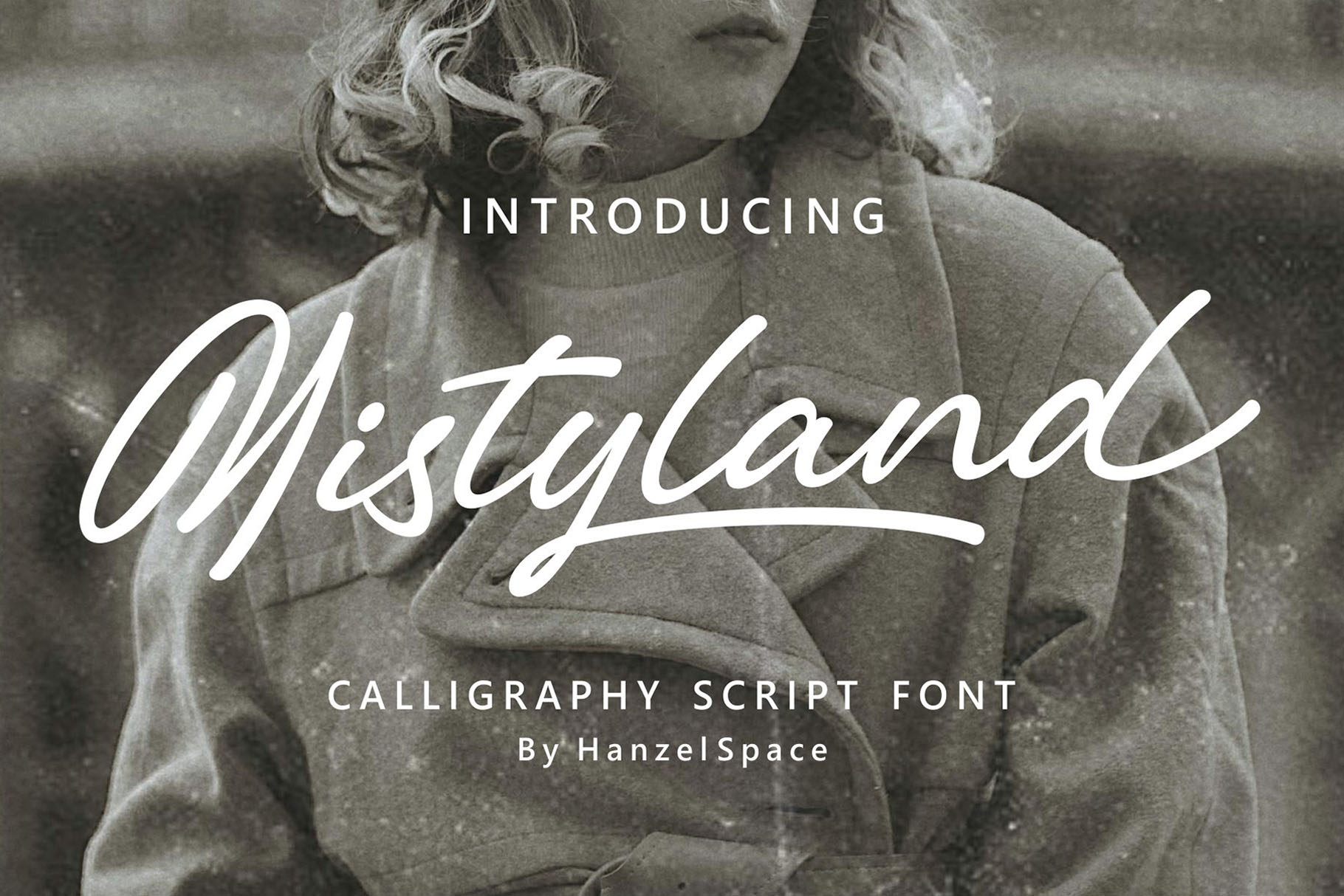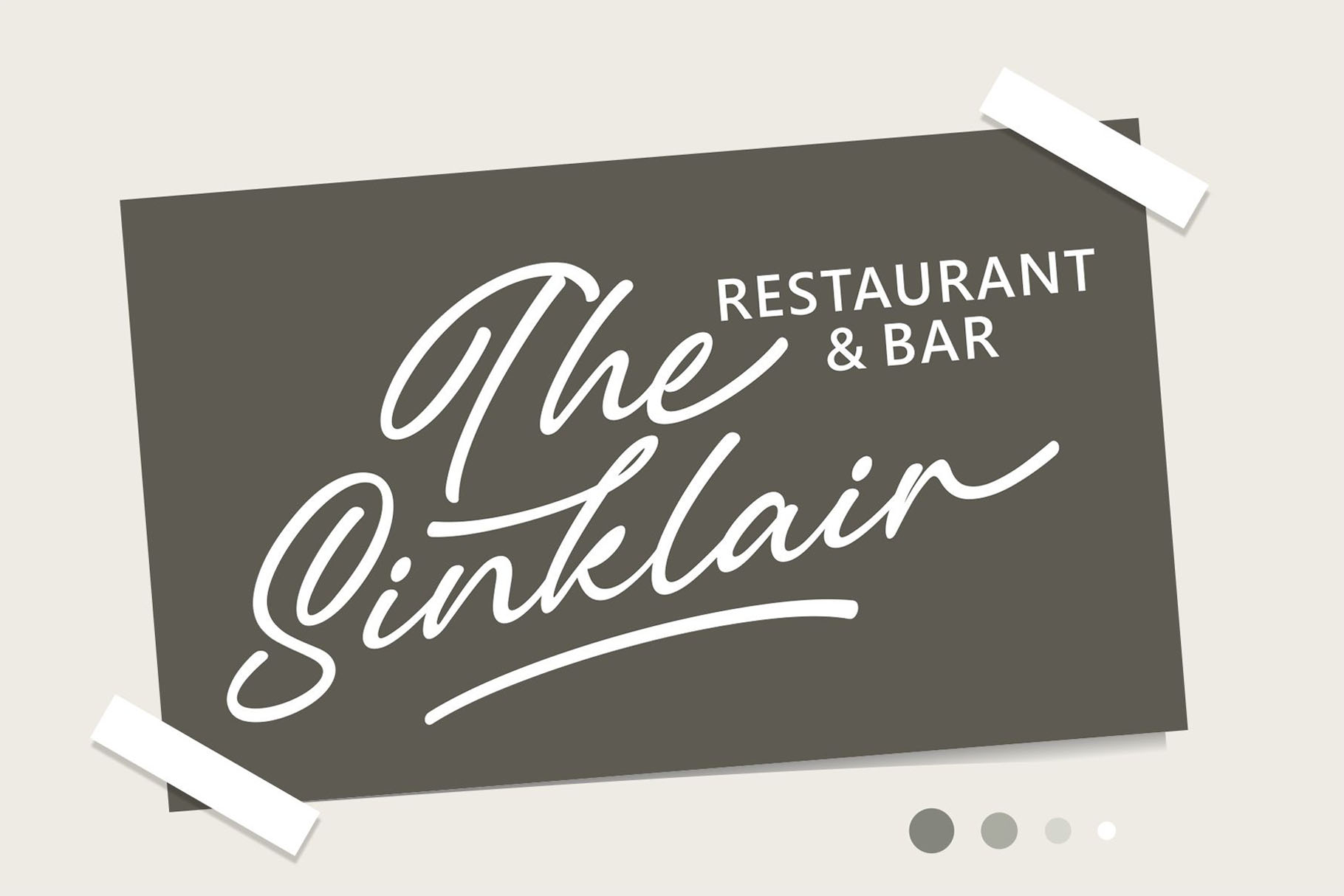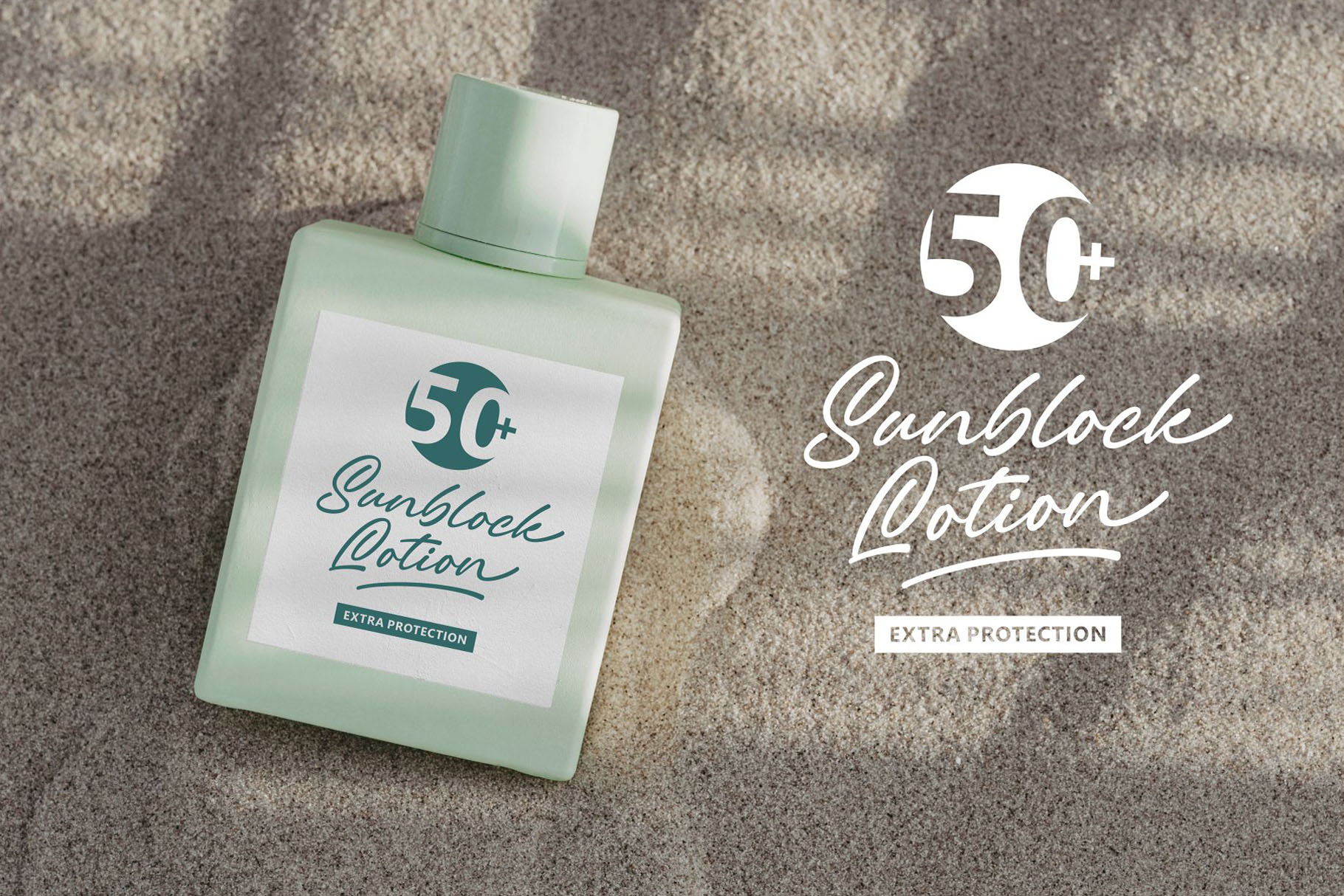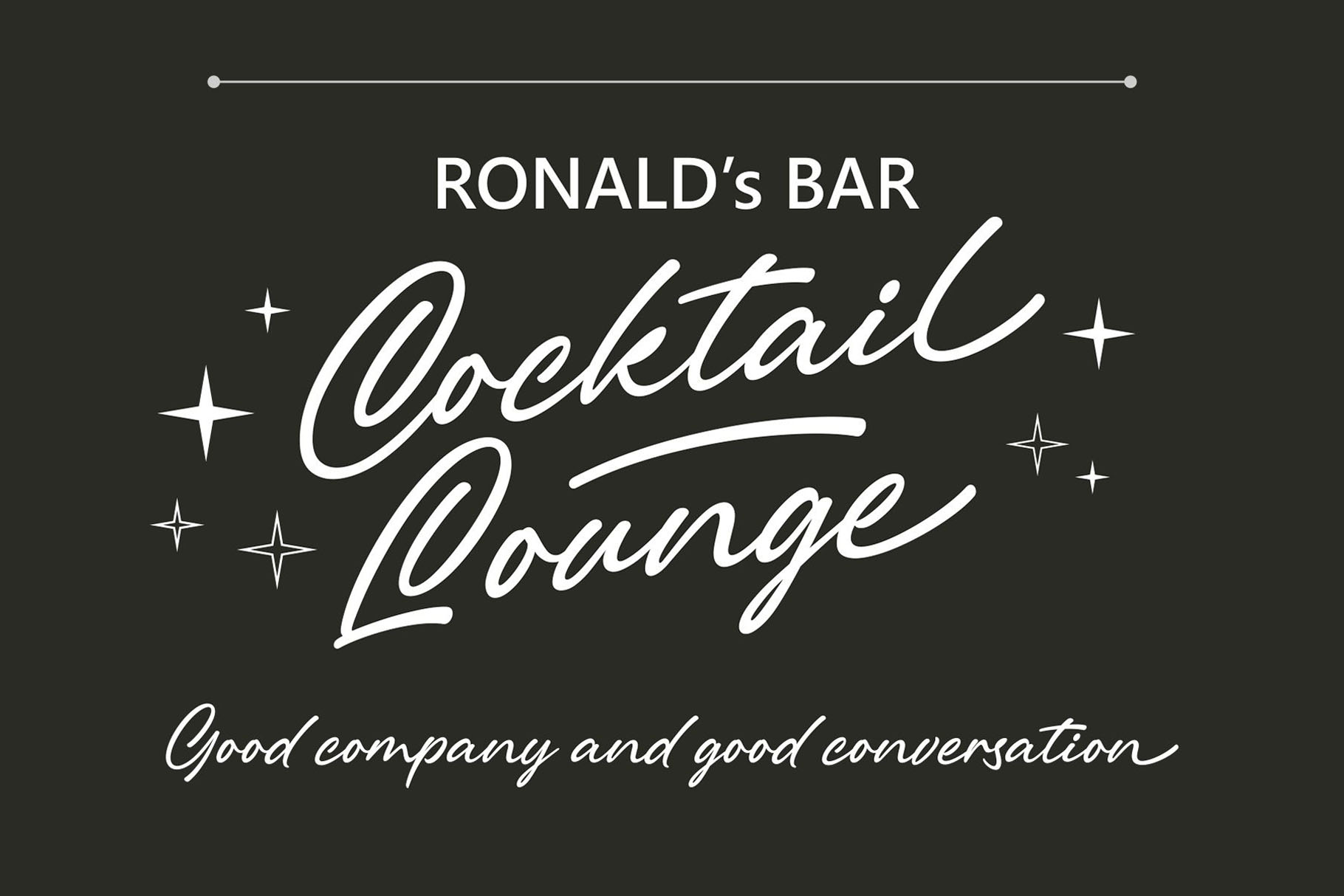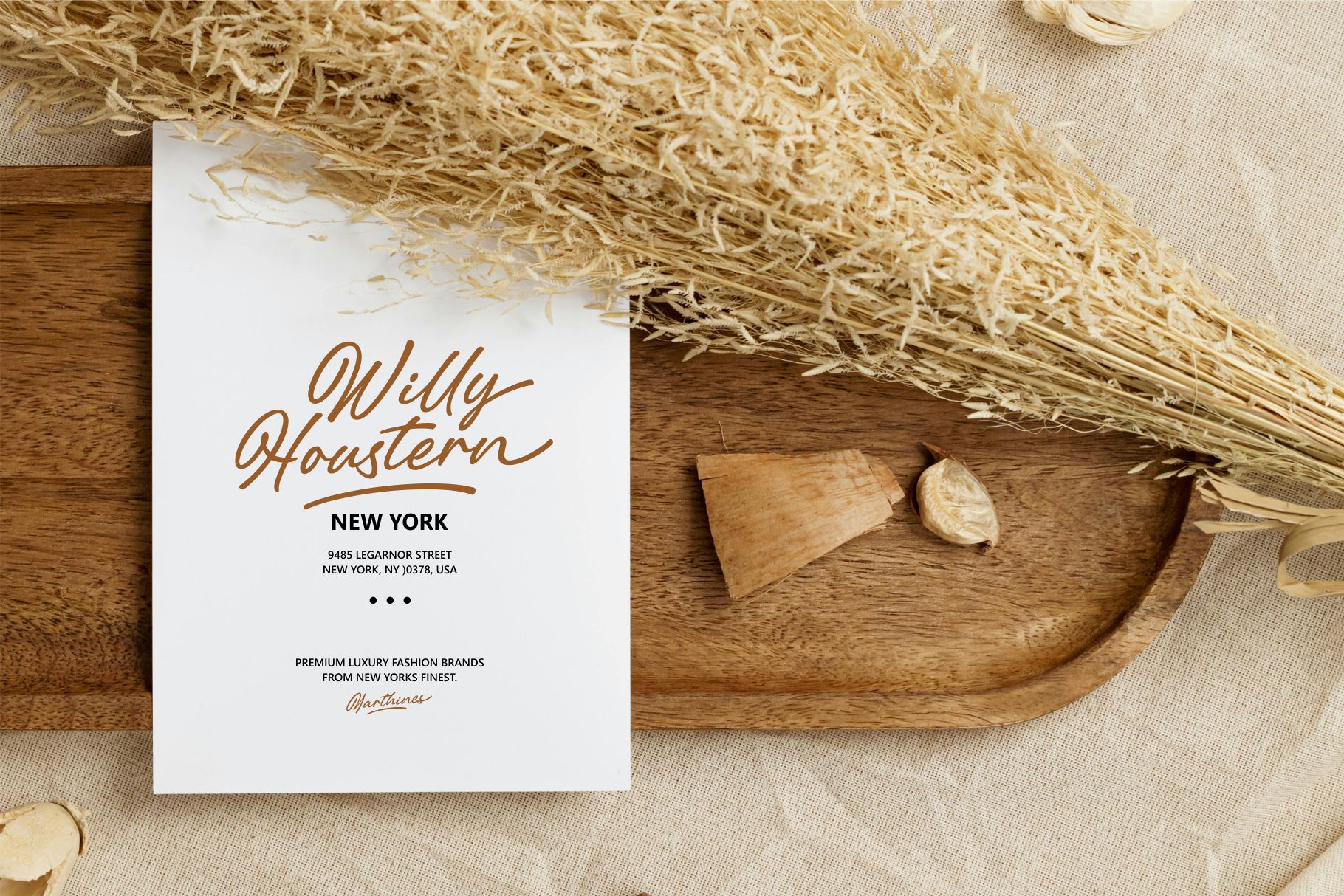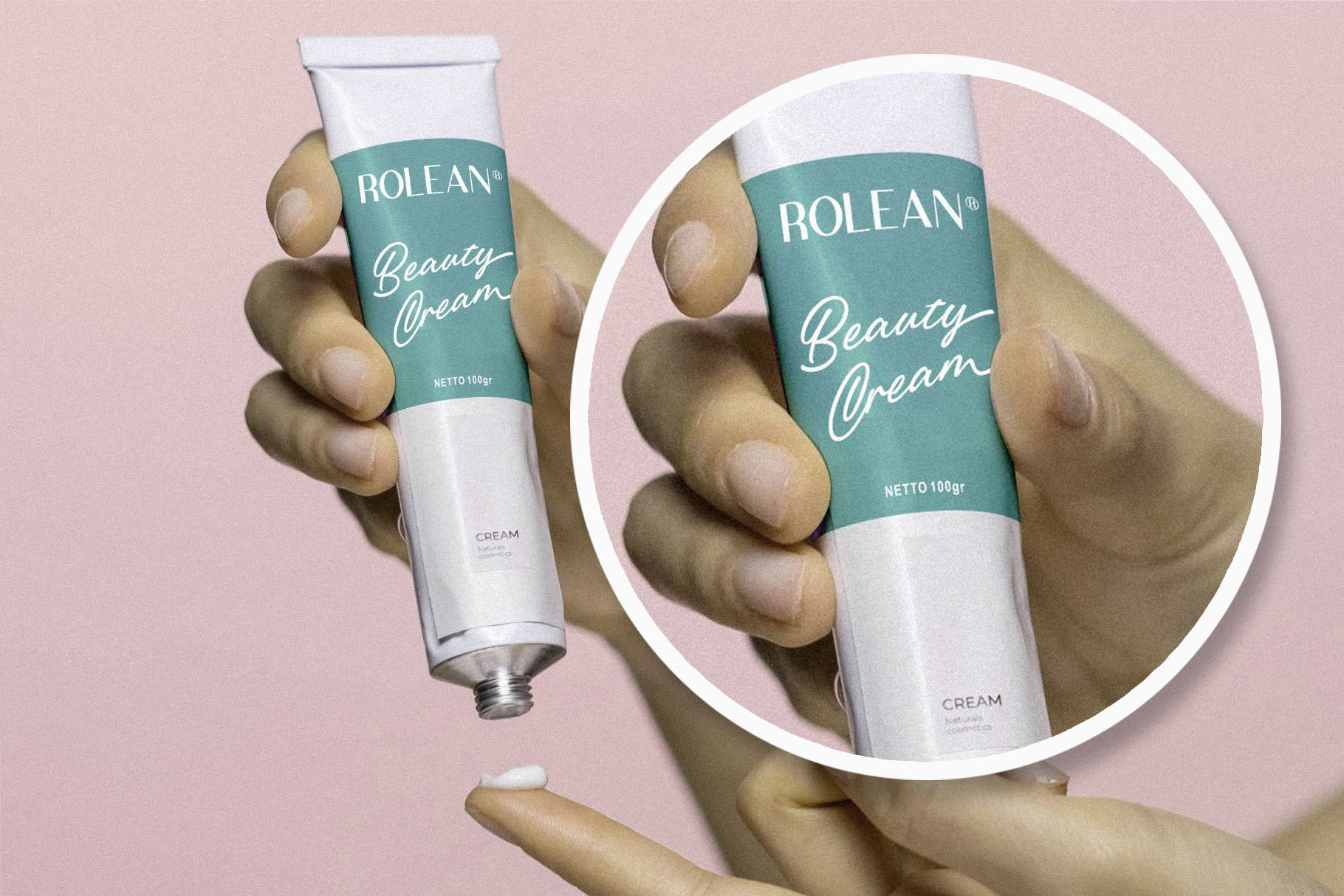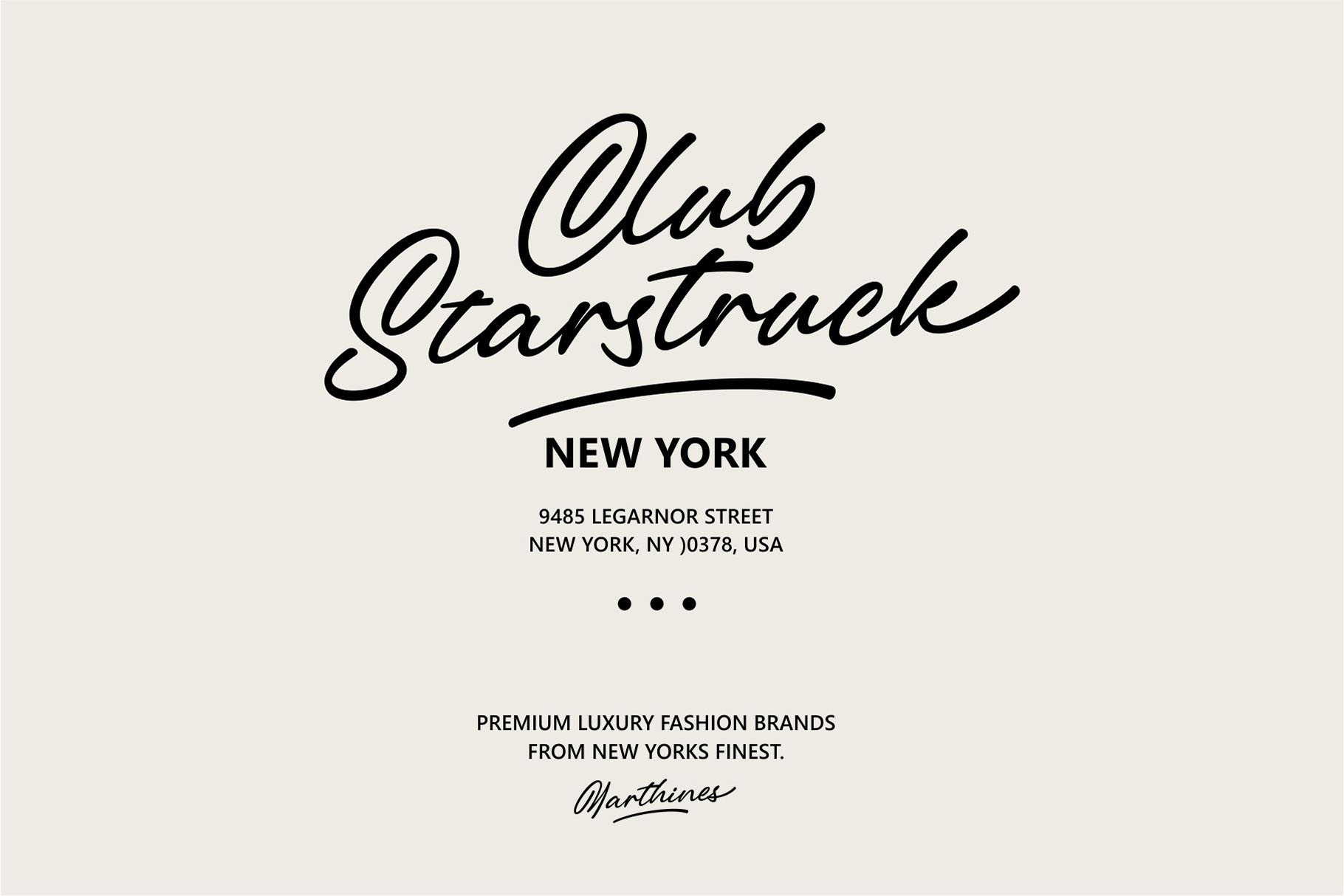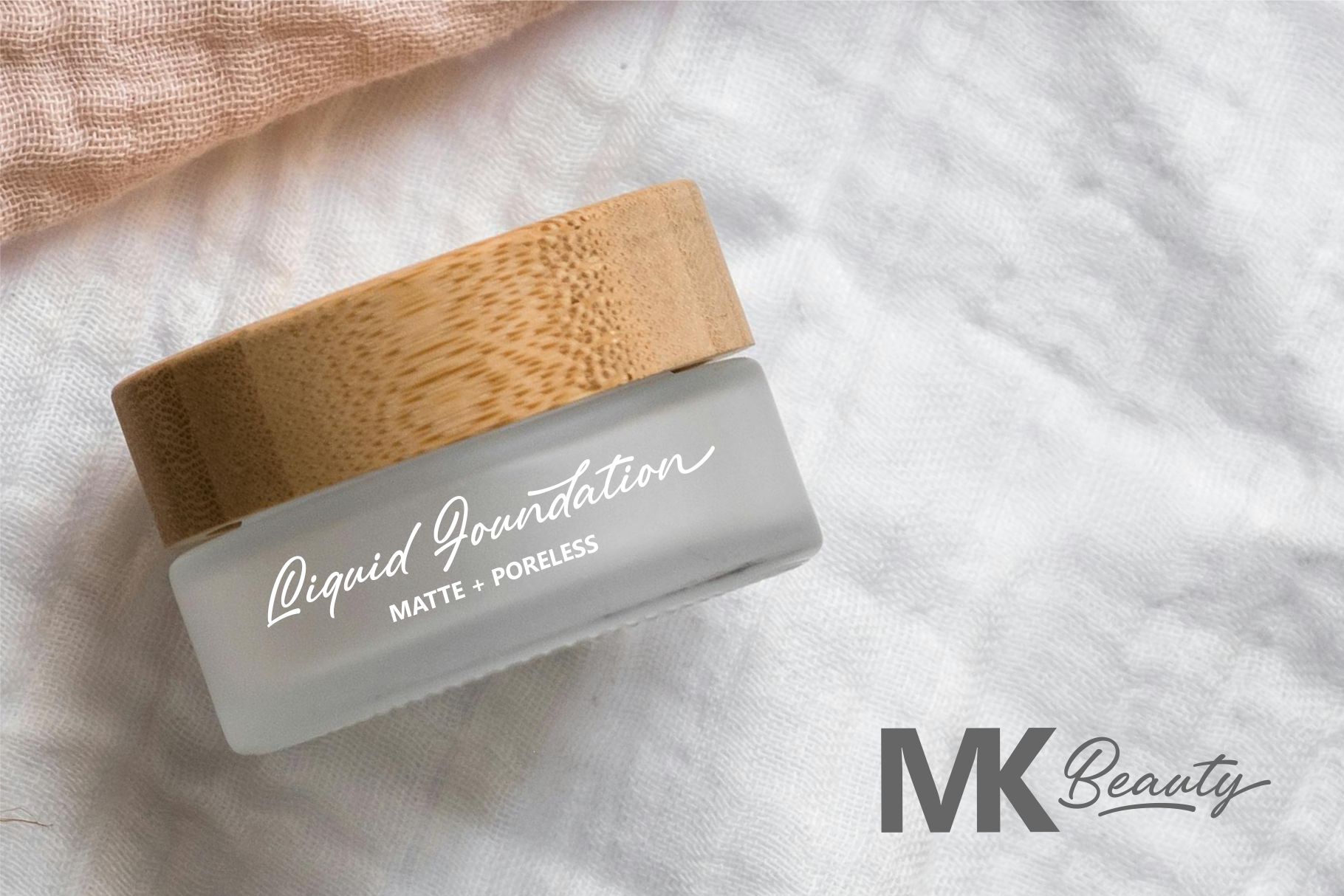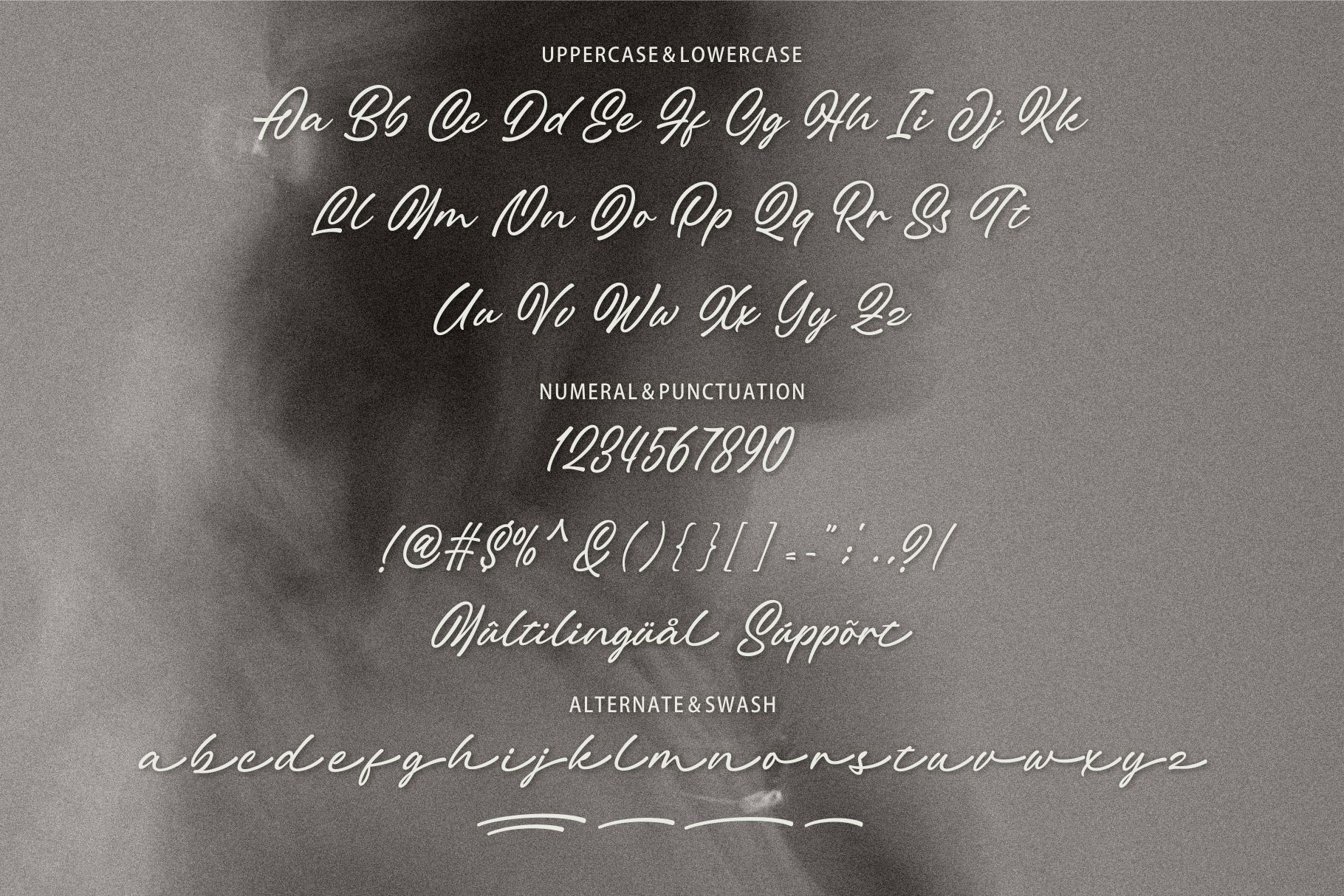
- Mistyland – Calligraphy Script Font
Introducing the “Mistyland” font, this font is inspired by an elegant design and its anatomy looks proportional and attractive in every curve so that this font is very suitable for use in various designs for product branding, logos, labels and others.
Features:
- Uppercase & Lowercase
- Numerals & Punctuation
- Ligatures
- Multilanguage Supports
- Extra set of ending swashed lowercase